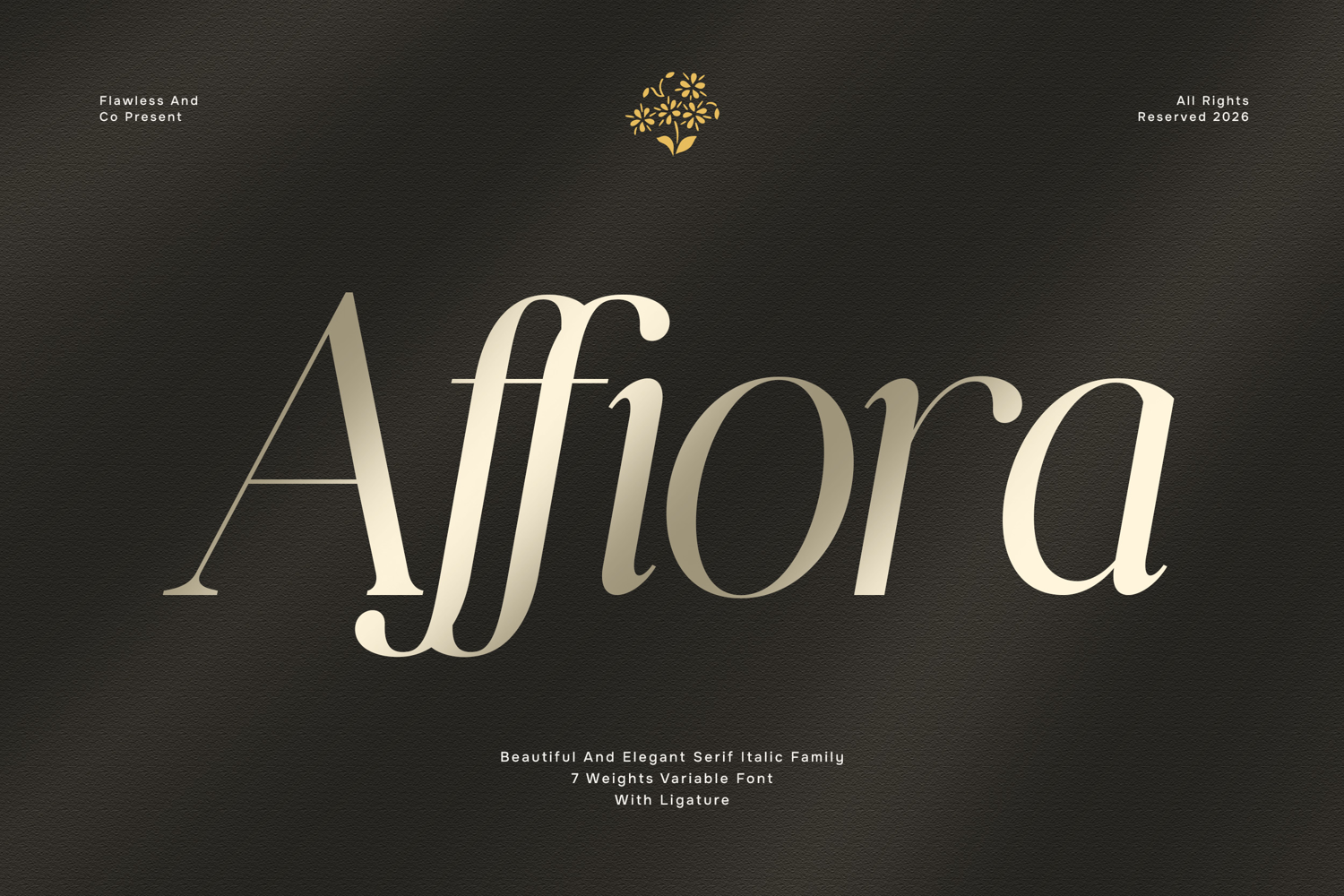
Affiora Family Font
AFFIORA-Thin
AFFIORA-ExtraLight
AFFIORA-Light
AFFIORA-Regular
AFFIORA-Medium
AFFIORA-SemiBold
AFFIORA-Bold
Affiora – Elegant Beautiful Italic Serif Family Font
Affiora is a beautifully crafted italic serif family font that embodies elegance, charm, and timeless sophistication. Designed with graceful italic letterforms and refined details, Affiora delivers a flowing and expressive typographic style that instantly elevates any design. Its delicate contrast and smooth curves create a luxurious appearance while maintaining excellent readability.
Multiple Weights (Italic Family)
Uppercase & Lowercase
Alternates & Ligatures
Numerals & Punctuation
Multilingual Support
Who Should Use Affiora?
Affiora is perfect for designers, creatives, and brands seeking a refined serif typeface that combines beauty, elegance, and modern sophistication.
Suitable For:
Luxury branding and logo design
Fashion and beauty editorials
Elegant packaging and product labels
Wedding invitations and stationery
Magazine headlines and editorial layouts
Social media branding
Website headers and digital design
Premium marketing and promotional materials